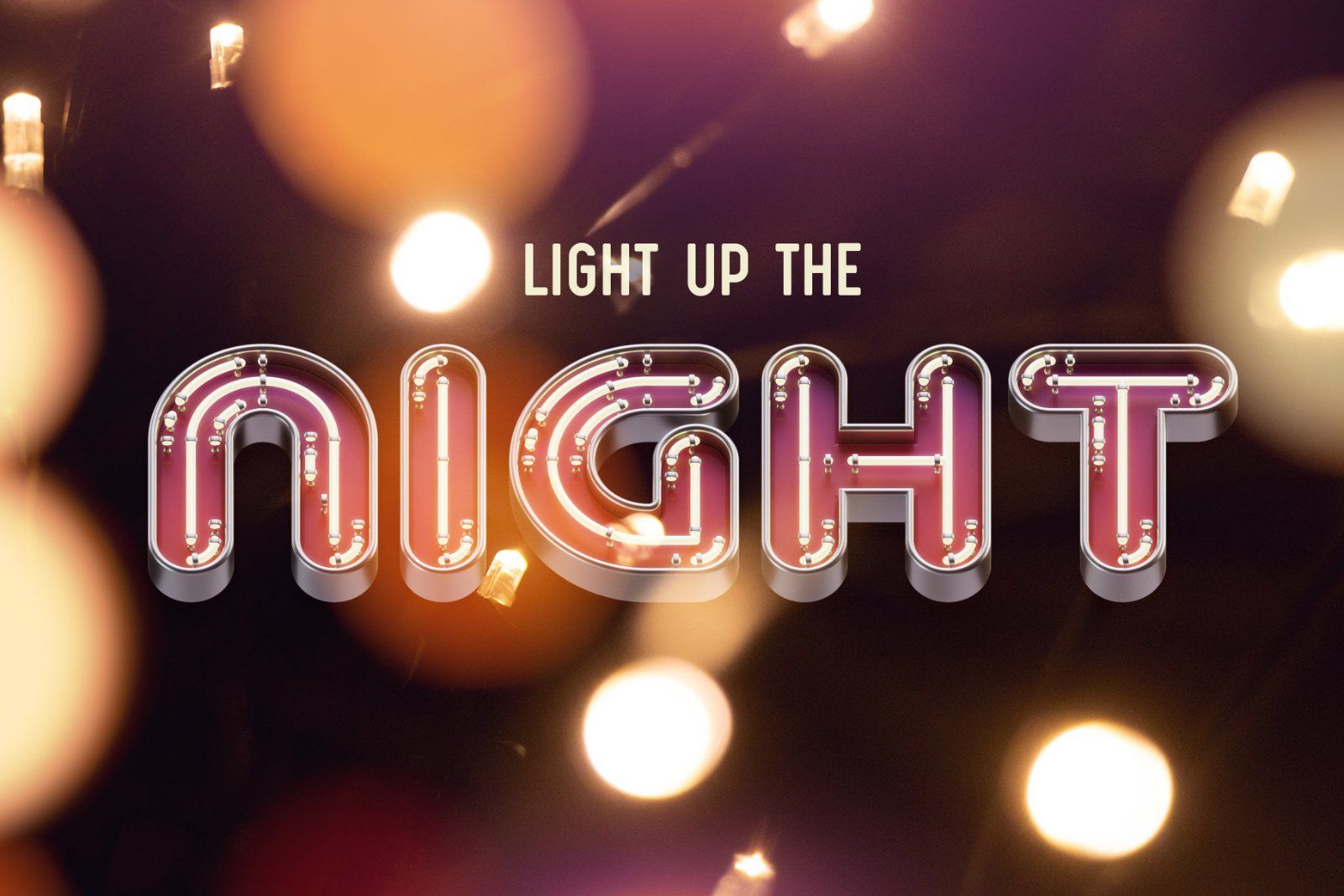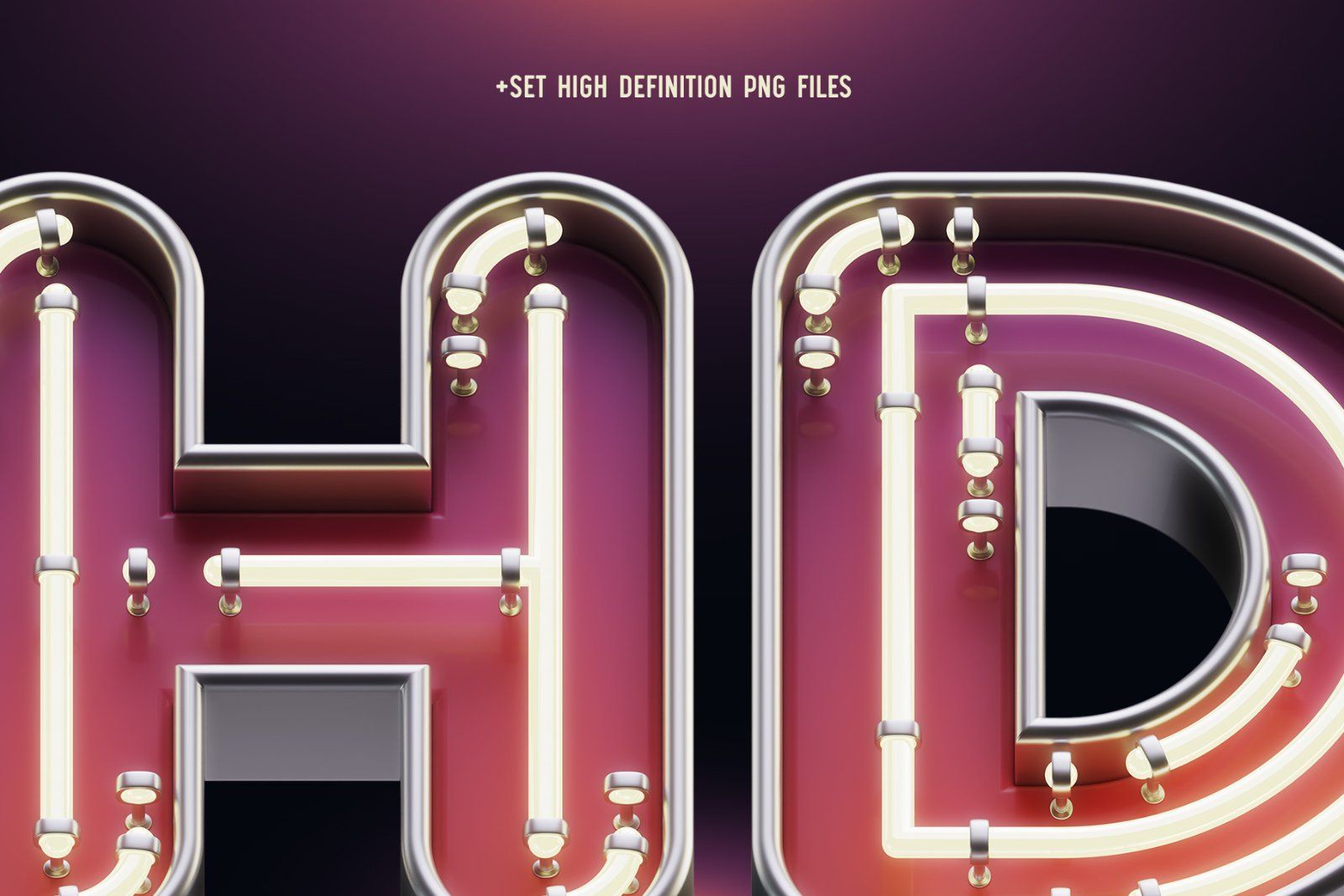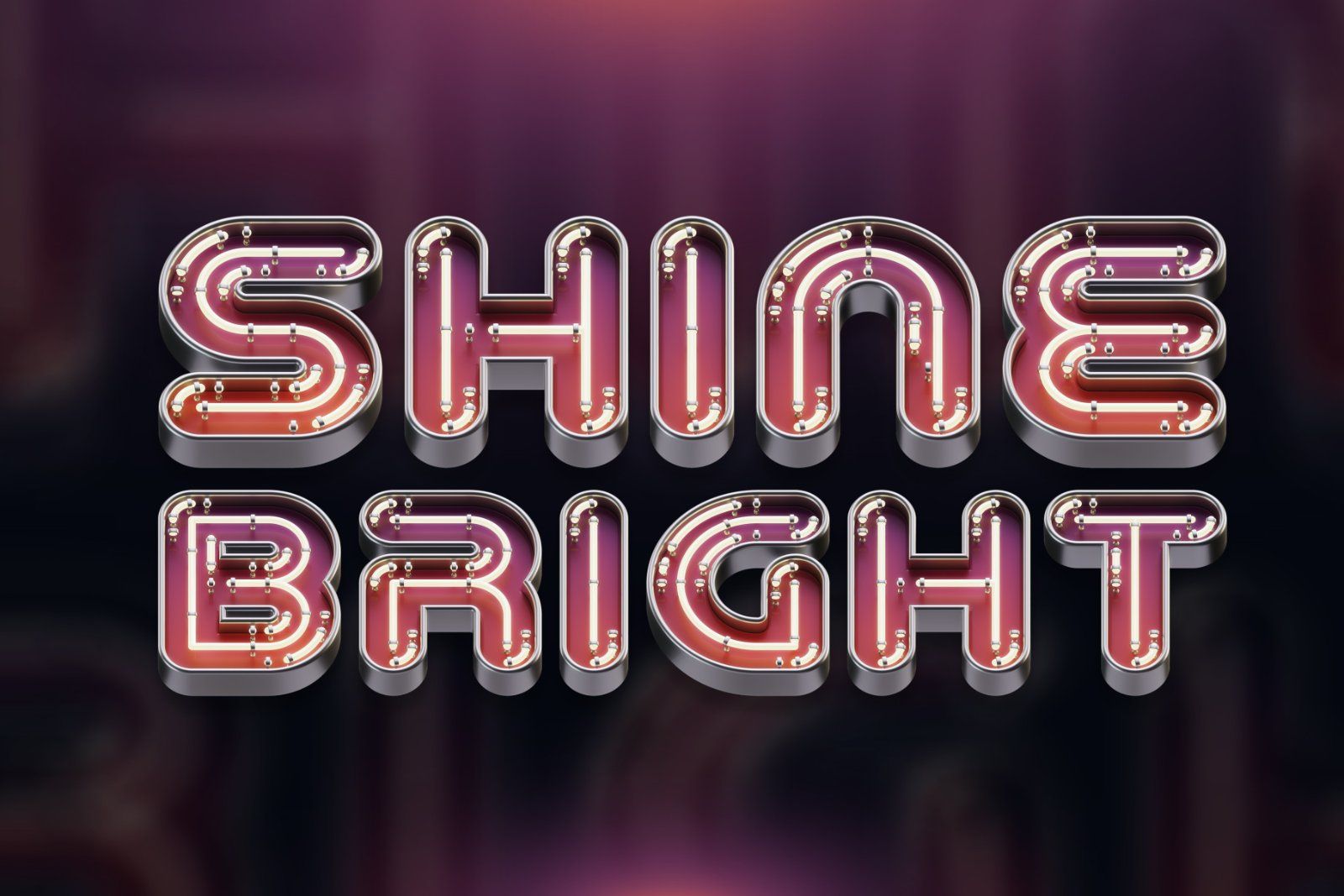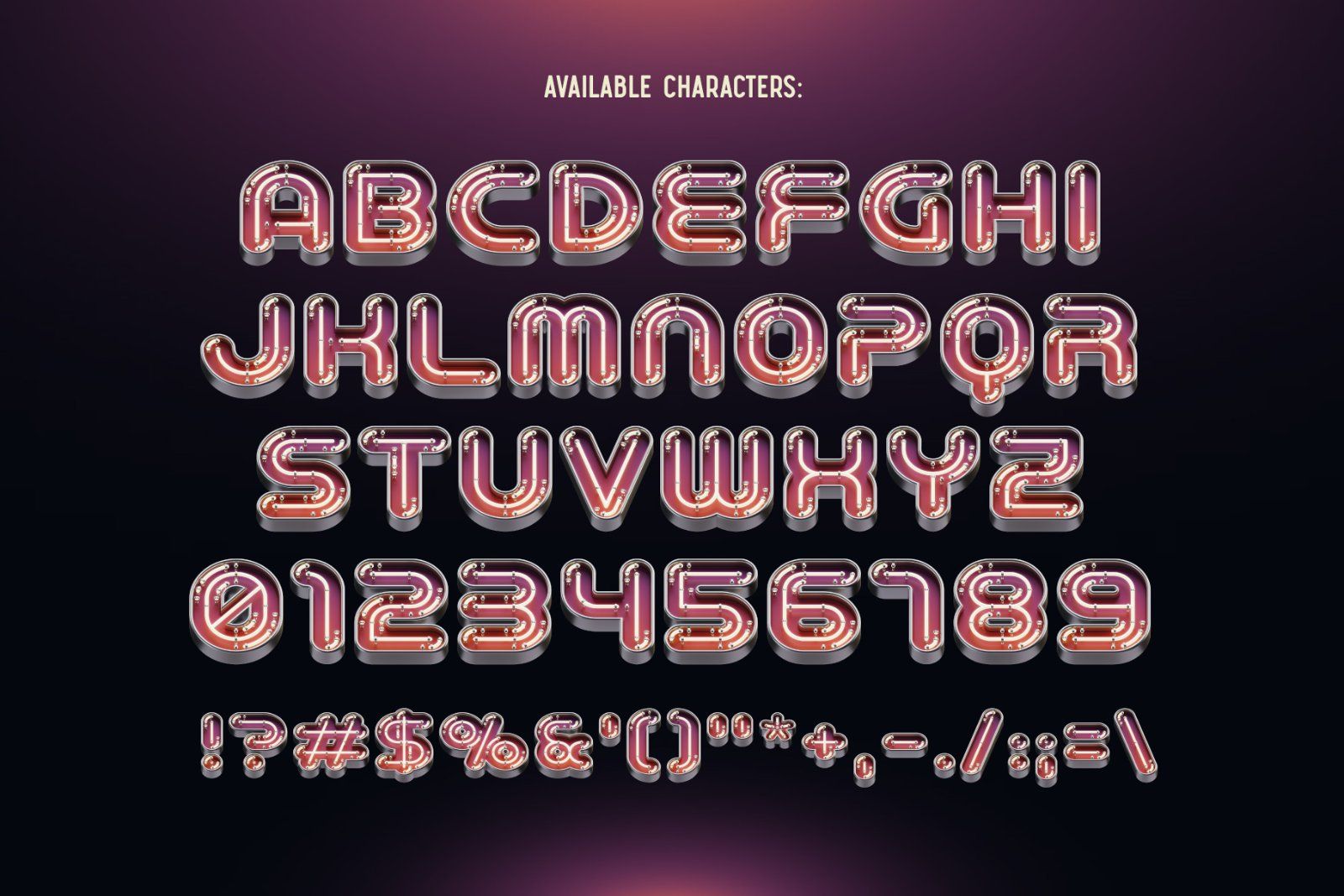
Hello! Presenting a colorful font set – Lights UP. It's a 3d rendered high quality typeface inspired by shining night signboards. Lights UP font has rounded metal shape with neon glowing effect. First of all it's a color bitmap OpenType-SVG font that can be used as a usual OTF font. Also a set of full resolution PNG files with transparent background is included (Average resolution is 7+ megapixels)
P.S: Only English language and basic punctuation is supported, please check out the screenshot with all available characters.